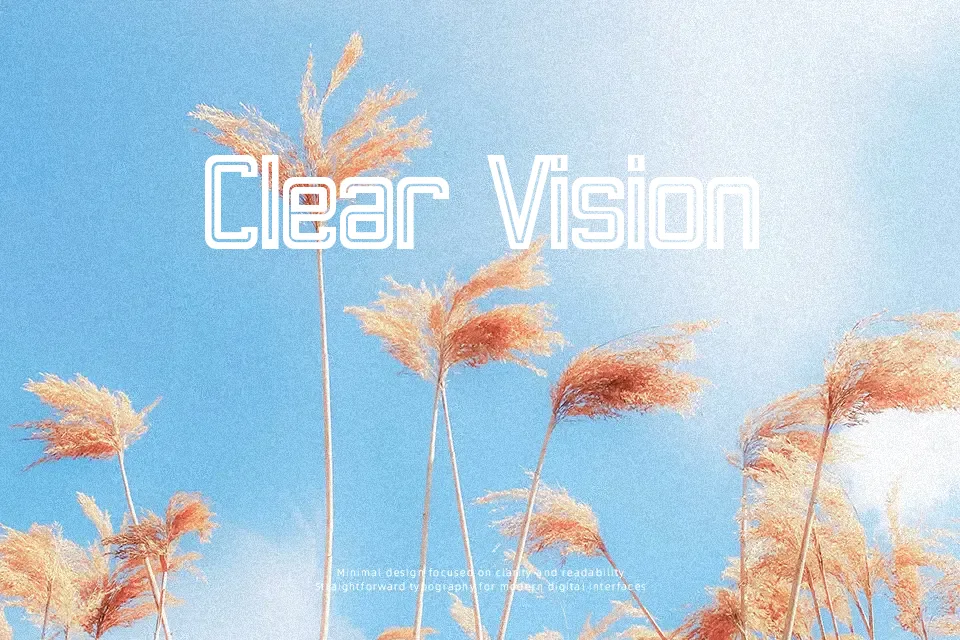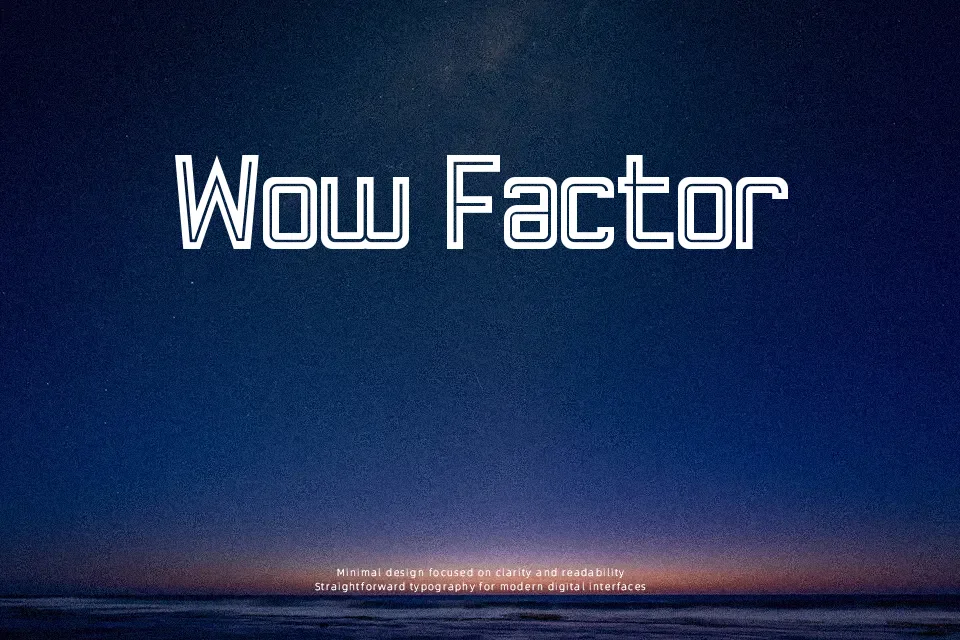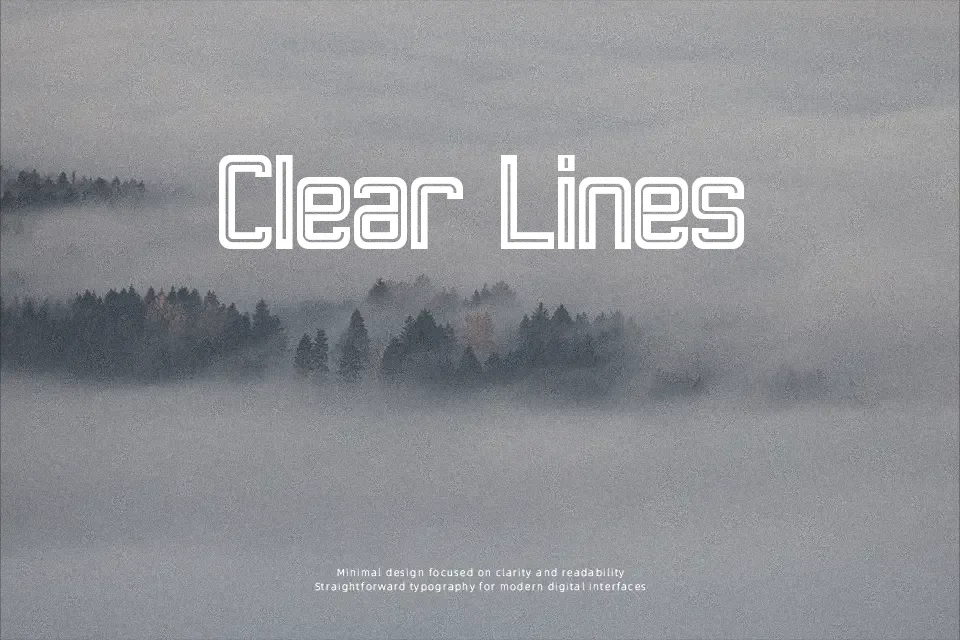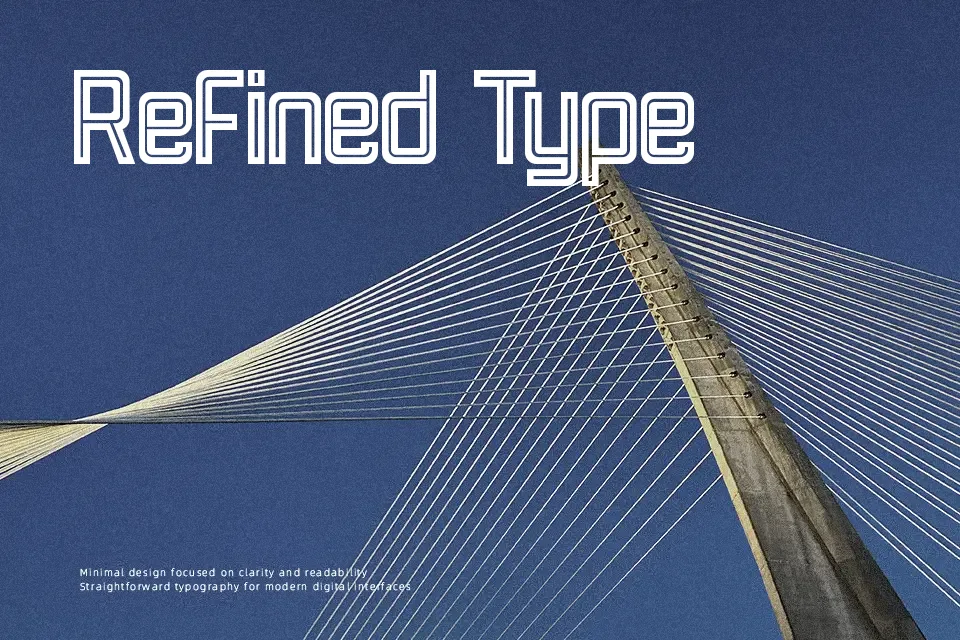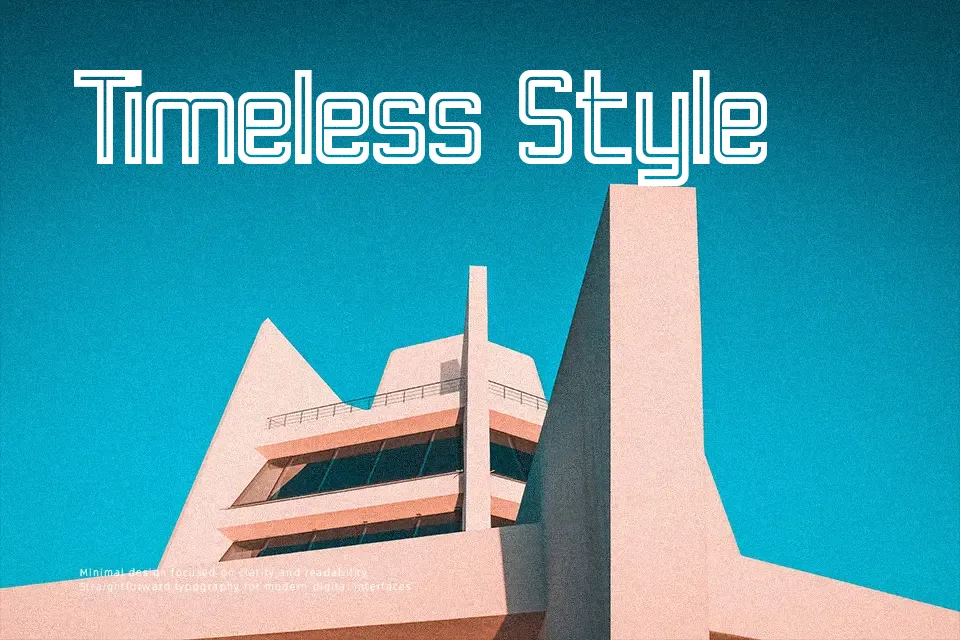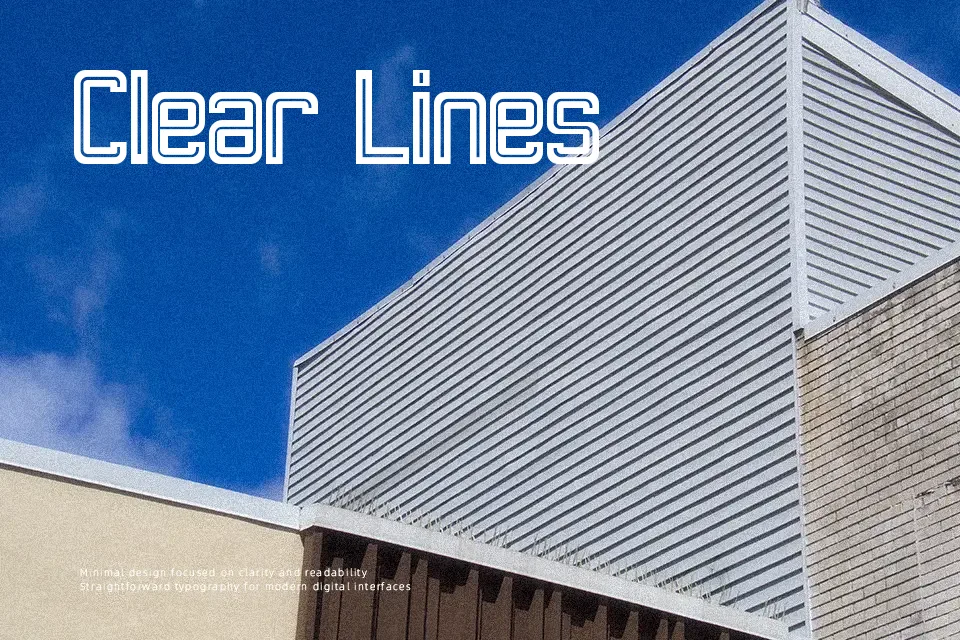
Retro Lines Font
Designed by Noah Type
The geometric structure of Retro Lines Font is defined by its distinct parallel strokes and consistent character widths. The letterforms are built using multiple continuous lines that form bold, striking shapes with a balanced internal spacing. This multi-line approach gives the typeface a dynamic, rhythmic quality that feels simultaneously nostalgic and precise. The tight tracking and heavy visual weight make it a standout choice for vibrant event posters, retro-themed apparel, and impactful logo designs. However, the complex decorative nature of the striped letters means it is completely unsuitable for long paragraphs or small captions. Ultimately, the intricate line work performs best when displayed at much larger scales where the internal spacing remains clearly legible.
retro event posters, vintage apparel graphics, music festival branding, large display headlines
long paragraph text, small interface labels, dense editorial layouts, technical manuals
Perfect for branding, headline, and poster, with a bold and decorative style.